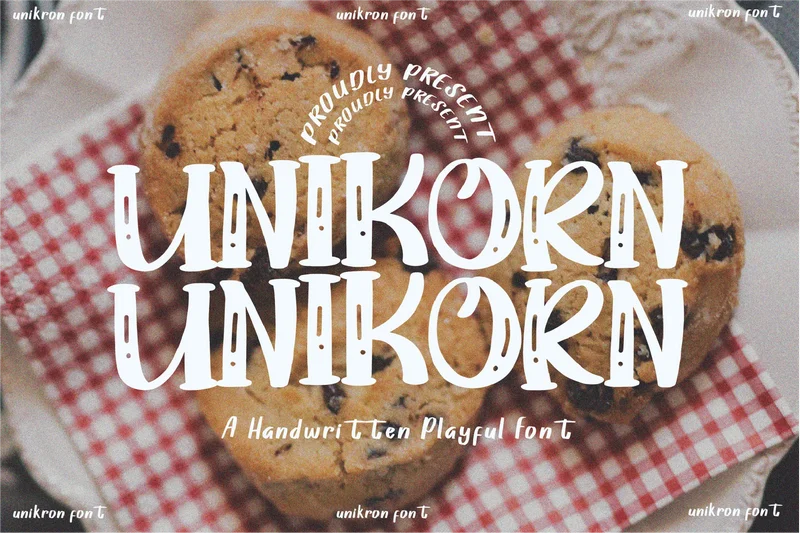
Unikorn – Handwritten Font
Unikorn is a playful display font that sparks imagination and joy. With its whimsical shapes and vibrant personality, this typeface is perfect for children’s books, posters, packaging, logos, and any creative project that wants to stand out with a magical and cheerful touch.